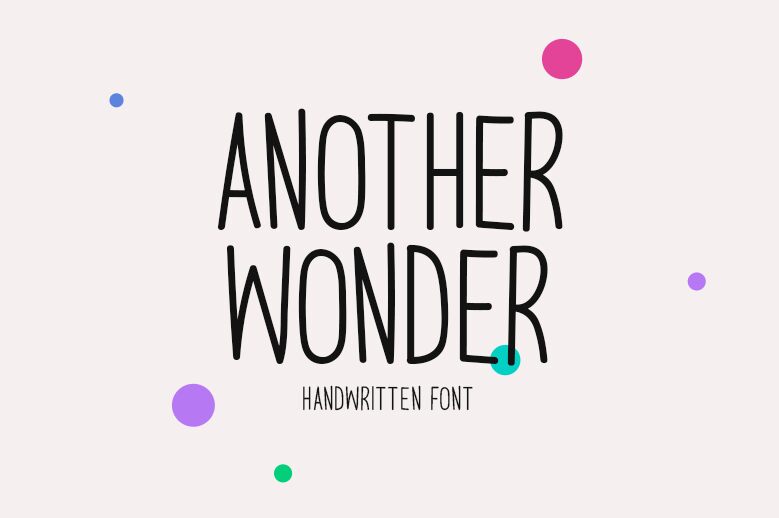
Another Wonder
Another Wonder font by Md Shohail Bhuian is a free handwritten font with a light weight and condensed width. It has a vintage-inspired, casual aesthetic that combines modernity with a nostalgic vibe. Perfectly balanced, this humanistic typeface’s charm comes from its uniqueness.
Use it in handwritten journals and notes, classic modern magazines, social media page covers, posters, logos, branding projects, video captions or even to decorate your workspace.